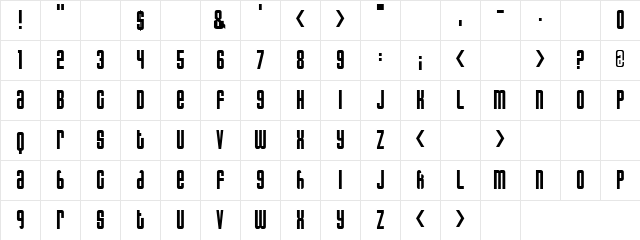
Crybaby Regular
Design Context for Crybaby Typeface
Crybaby offers clean, dependable letterforms without strong stylistic allegiance, making it a practical choice for designers who need flexibility.